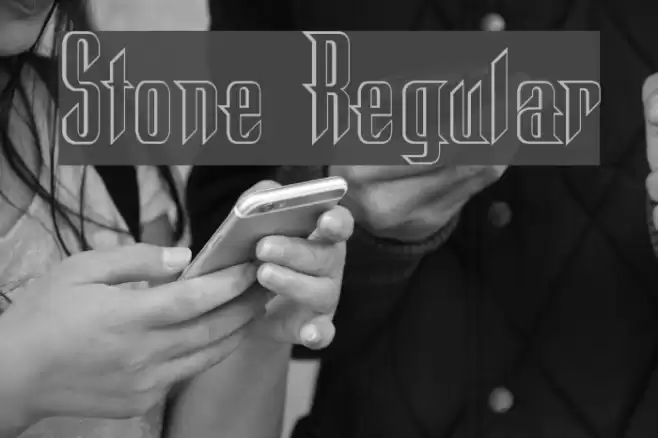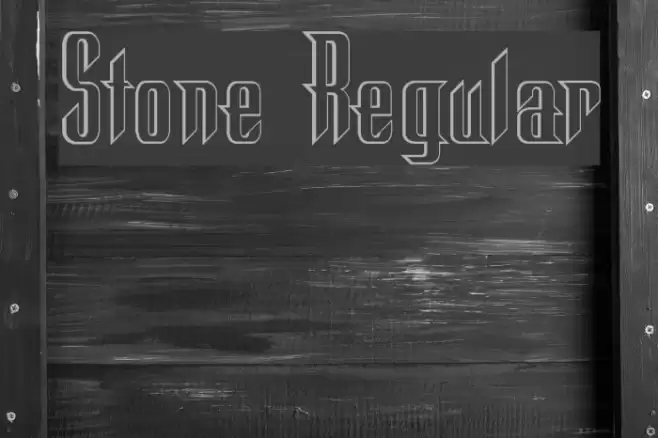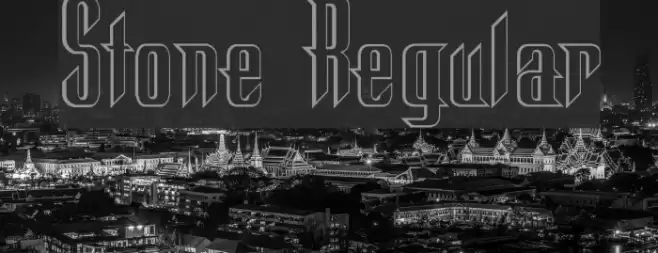
Stone Regular Font
Stone Regular Description
This font features a bold, decorative style with sharp, angular edges and a distinct outline that gives it a three-dimensional appearance. The uppercase letters are tall and narrow, with unique serifs that add to the overall dramatic effect. The lowercase letters maintain the same angular characteristics, providing a cohesive look across the typeface. Numbers and special characters are designed with the same attention to detail, ensuring consistency throughout. The font's design is reminiscent of vintage signage or classic tattoo art, making it stand out in any application.
A bold, angular, decorative font with a three-dimensional outline effect from Outline fonts.
- Proposed Projects: Ideal for use in branding, poster design, album covers, and any project requiring a striking, vintage aesthetic.
- Overall Style: Vintage